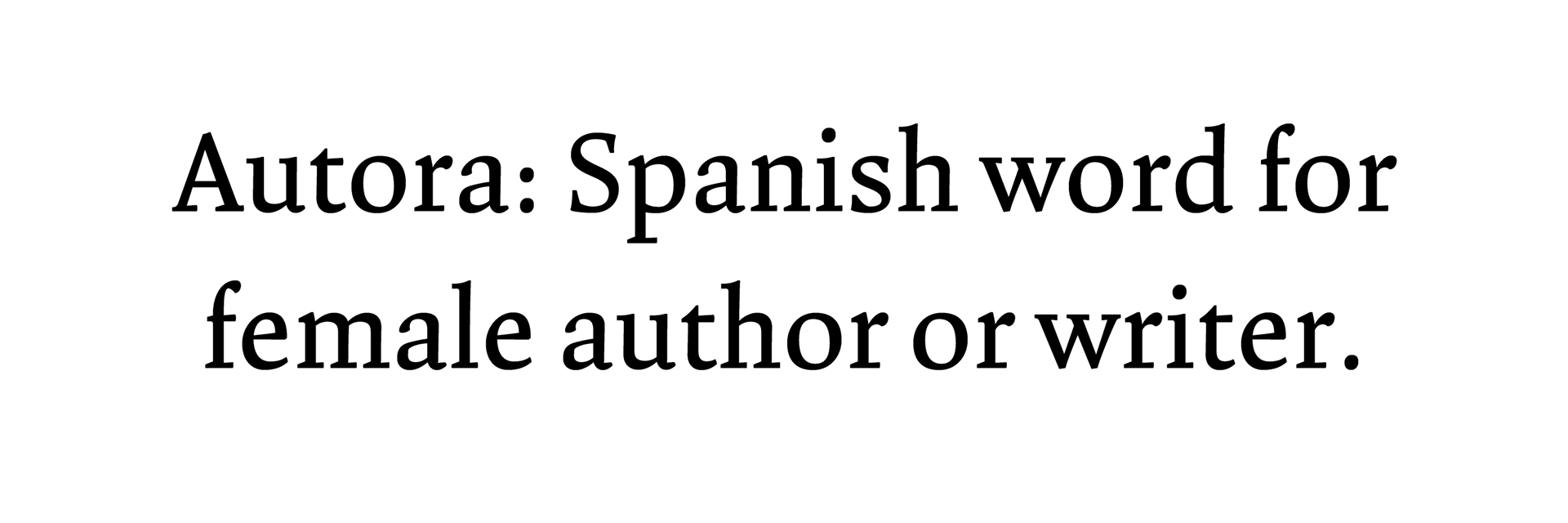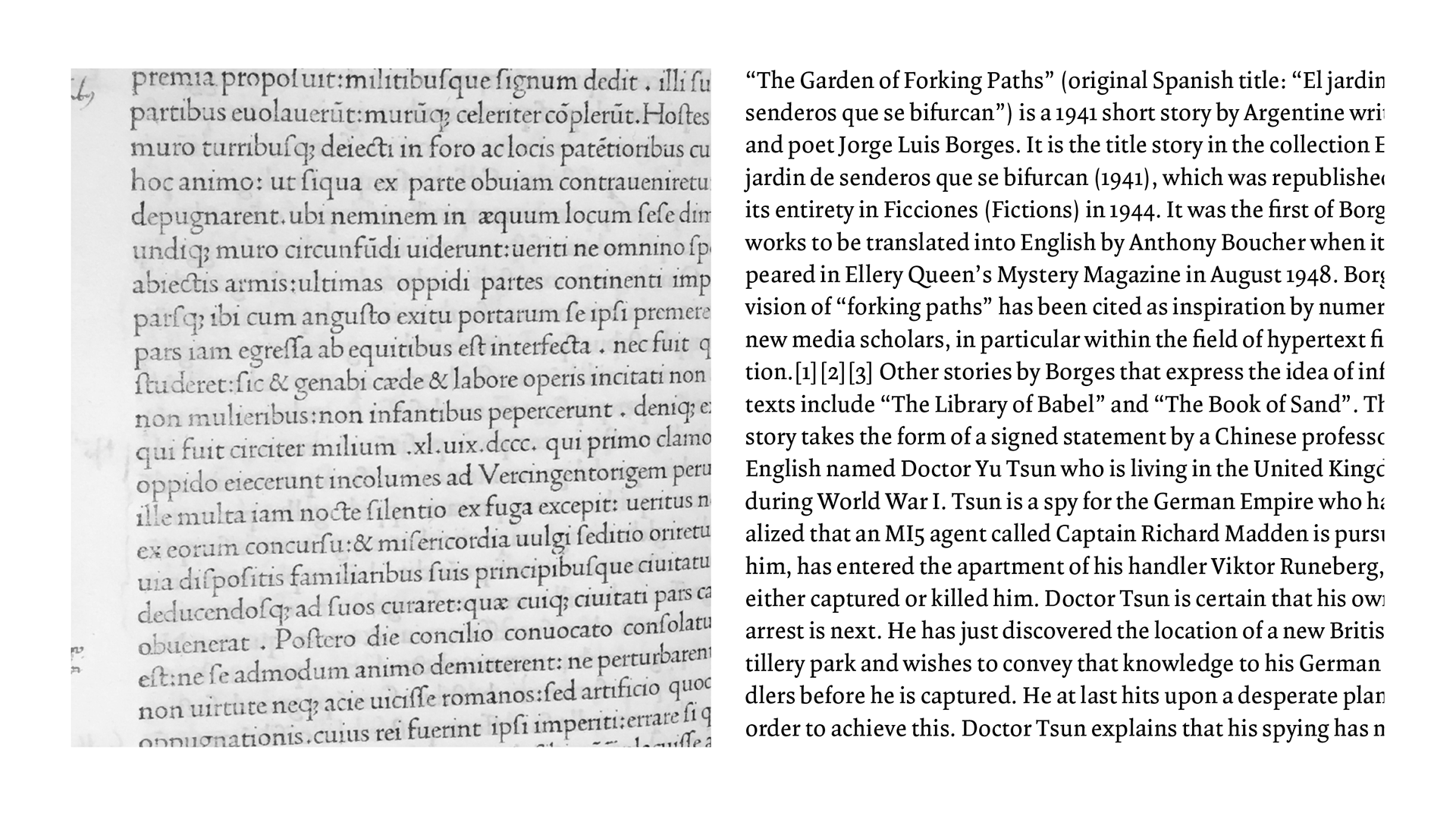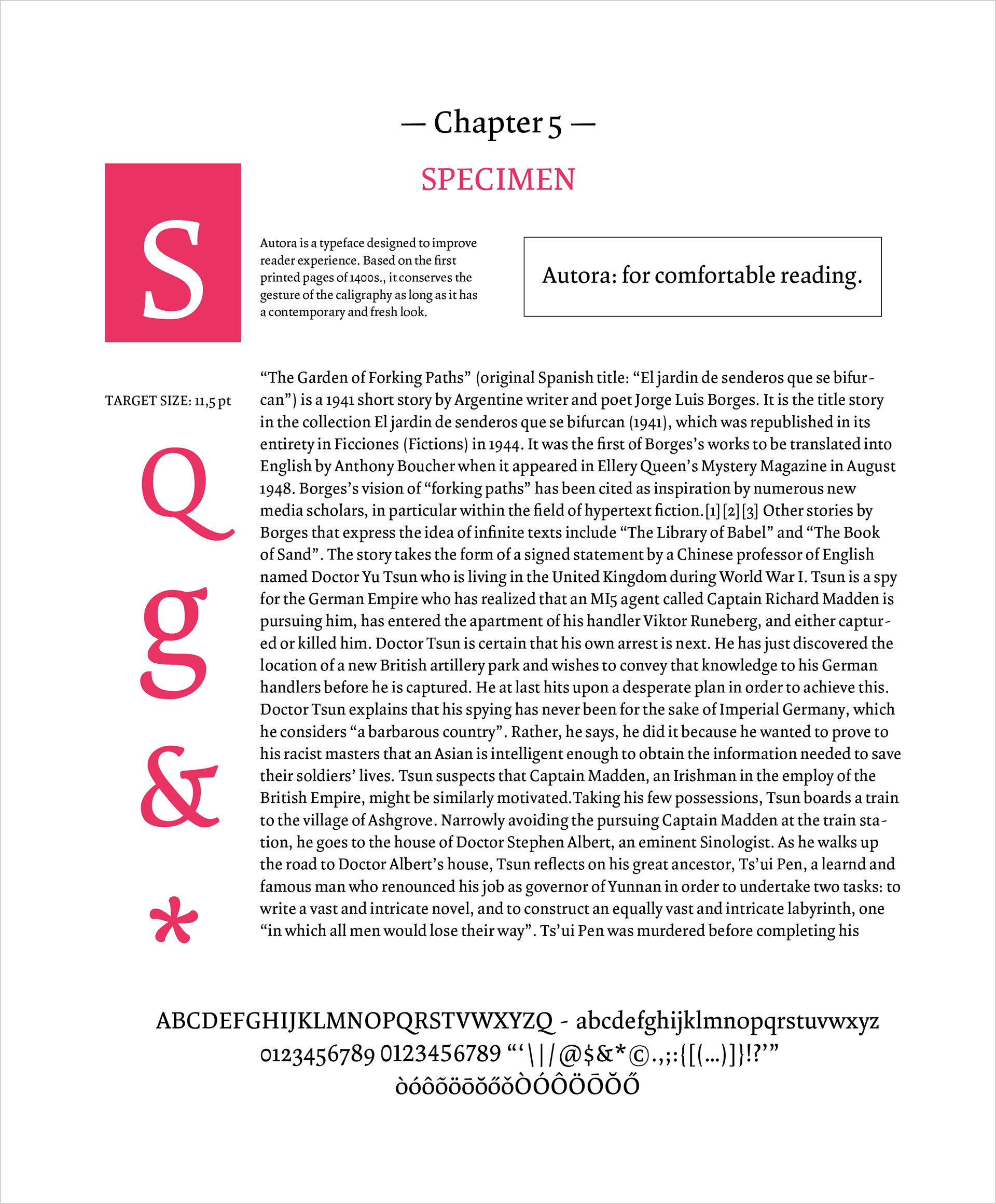
Autora is a typeface for books designed during the Type@Cooper program in 2016. The project started with the observation of the first printed books, found in New York City libraries. The study focused on the color of the texts as well as the calligraphic look and the proportions of the Venetian typography. As a result, Autora is a modern typeface which revives some of that beauty in order to enhance the reading experience. In spite of the accurate work done, by now, this font is just a prototype that allowed its author, for the first time, to explore the text size universe. The completion is not scheduled.